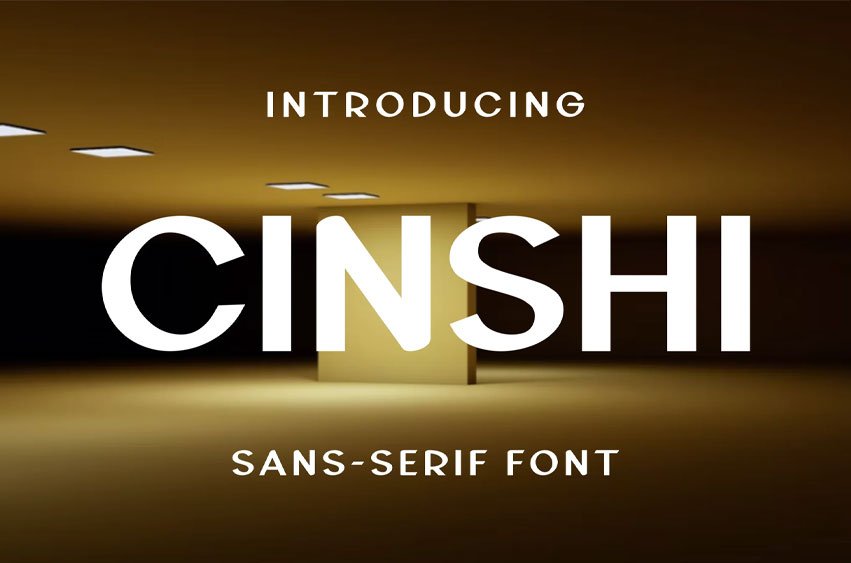
Cinsi Font
Cinsi Font Logo Perfectly suited on print/screen.
it’s perfect for Branding, name card, poster, logo, magazine, cover, banner, t-shirt and headers, or even large-scale artwork.